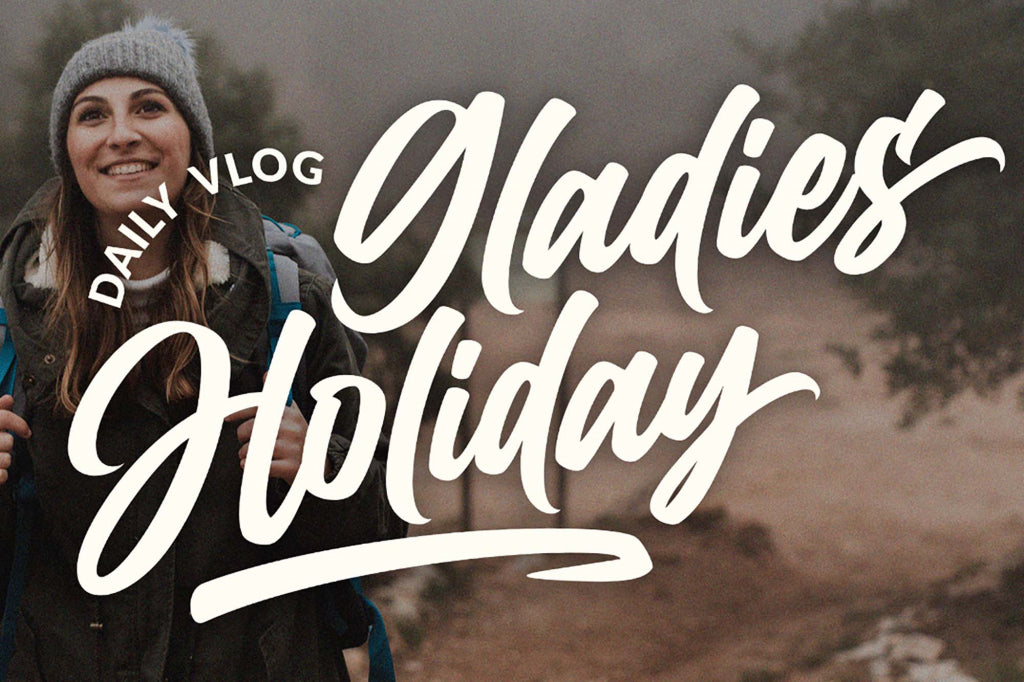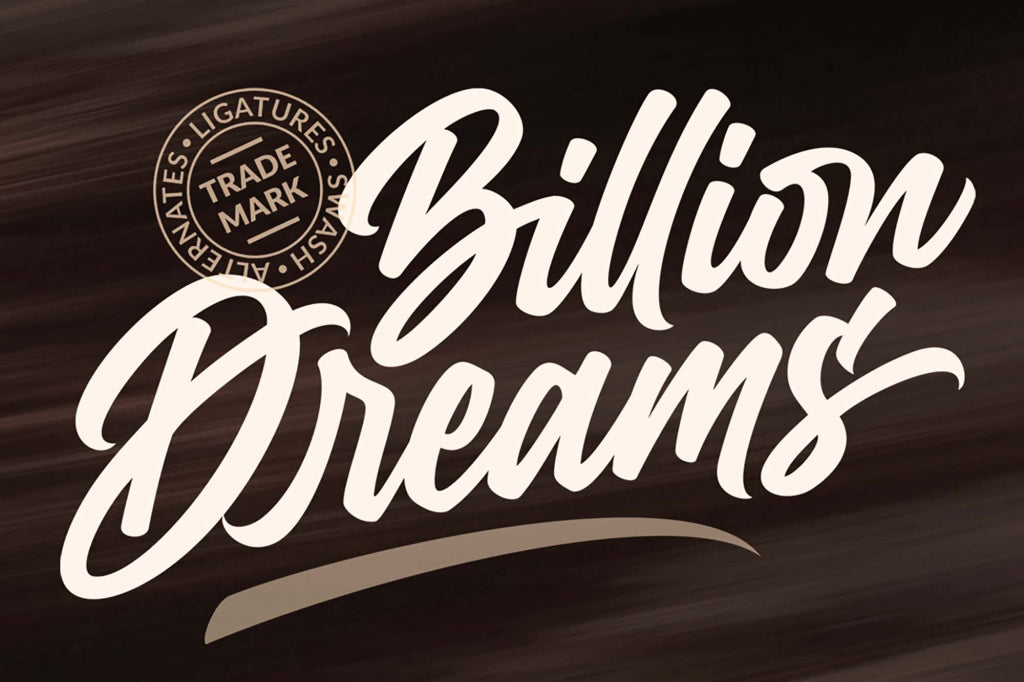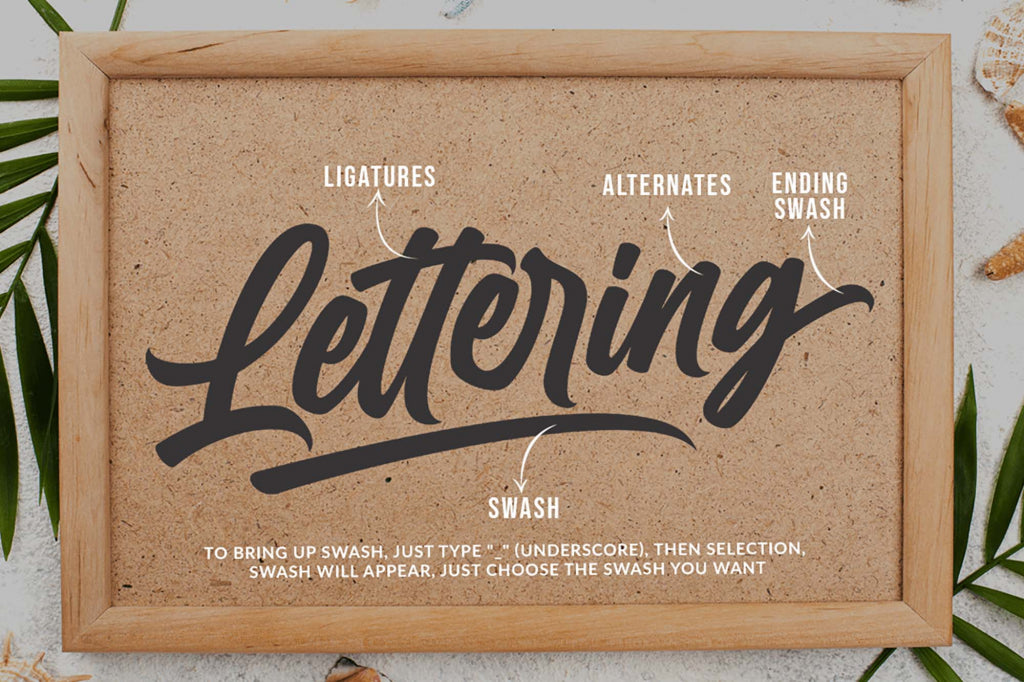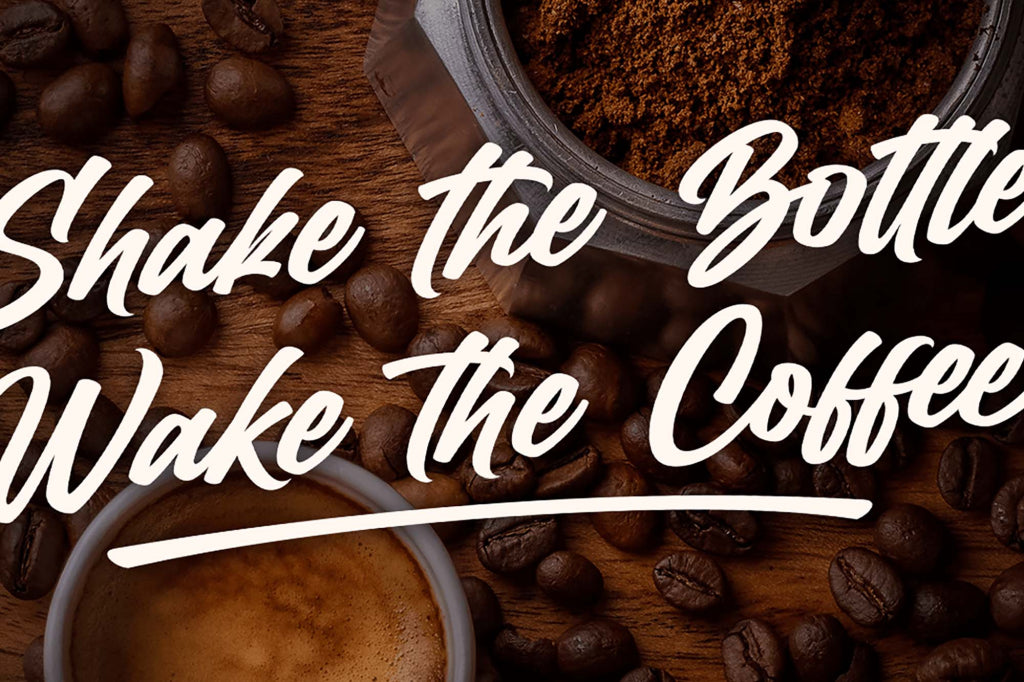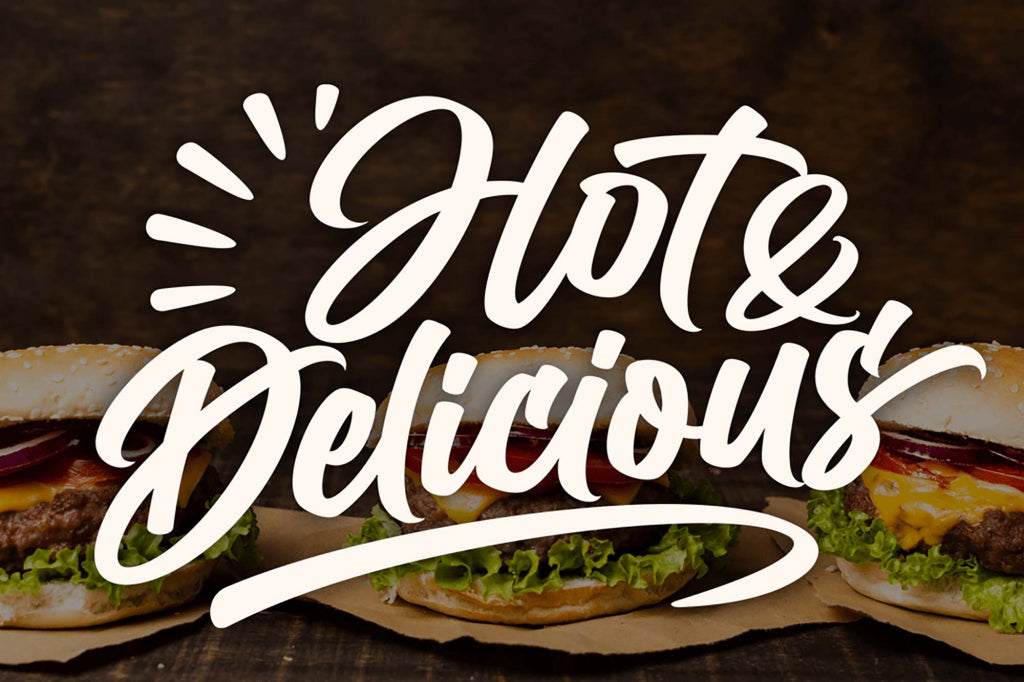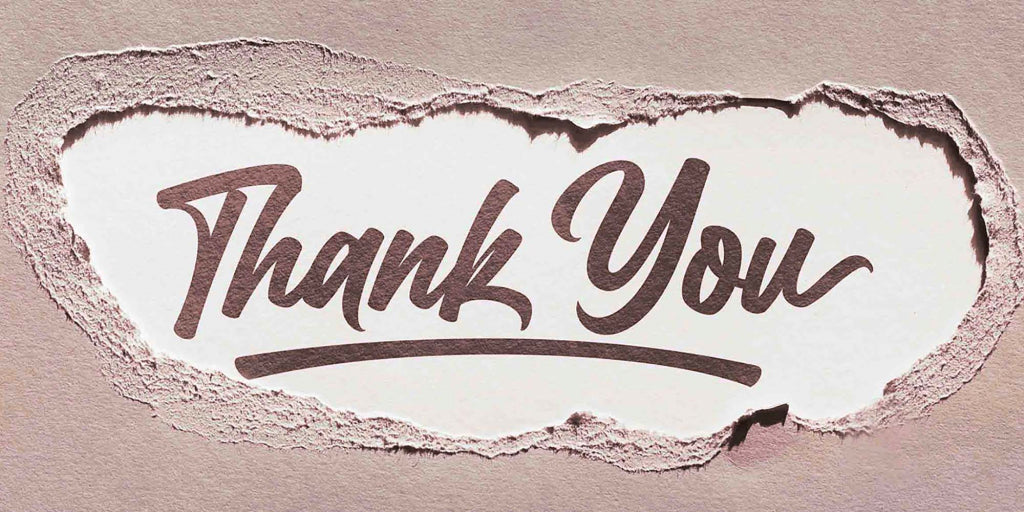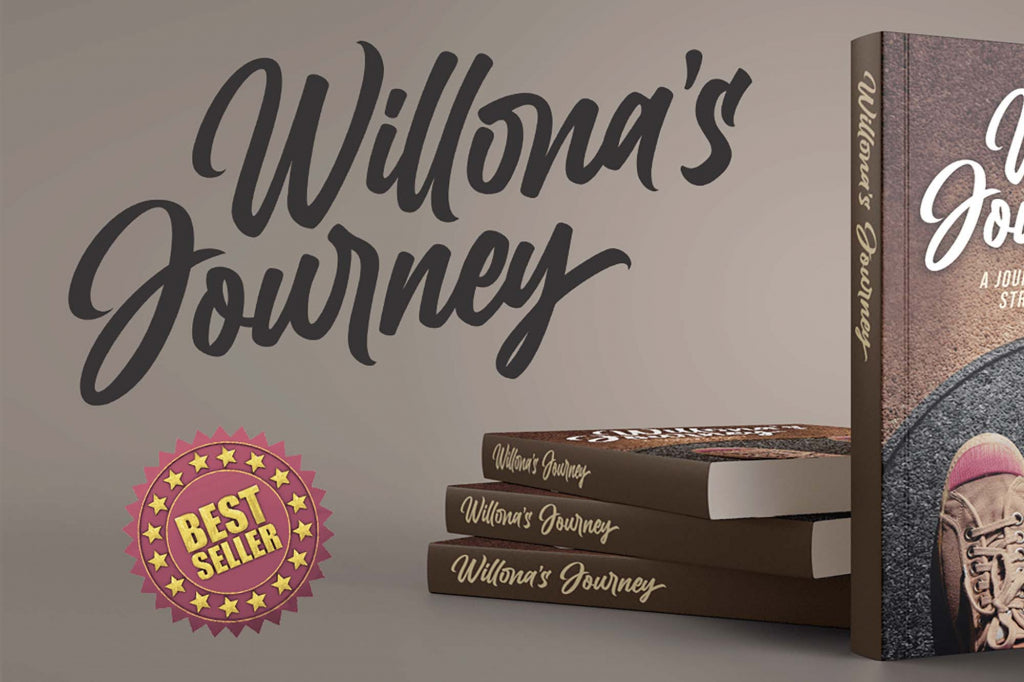
Dreams are what keep us going, they keep us motivated when times are hard and we can’t seem to see the bright side. But there are times for dreams to stay dreams, and there are times for them to come true. And today, not just one dream is coming true but a billion.
Presenting Billion Dreams from Mans Greback, a fresh logotype script font that, with its wide collection of characters, can be used for shop signs, posters, online posts with quotes, branding presentations, etc. If a dream is a wish your heart makes, then this is a wish easily granted as you can immediately get your hands on the free version of this beautiful font and make its thick brush strokes part of your projects or purchase the premium version and download the stylistic alternates, ligatures, and swashes so you can share varied designs and give personality to any project. Keep in mind that this beautiful font also comes with lingual support, covering all European Latin scripts.